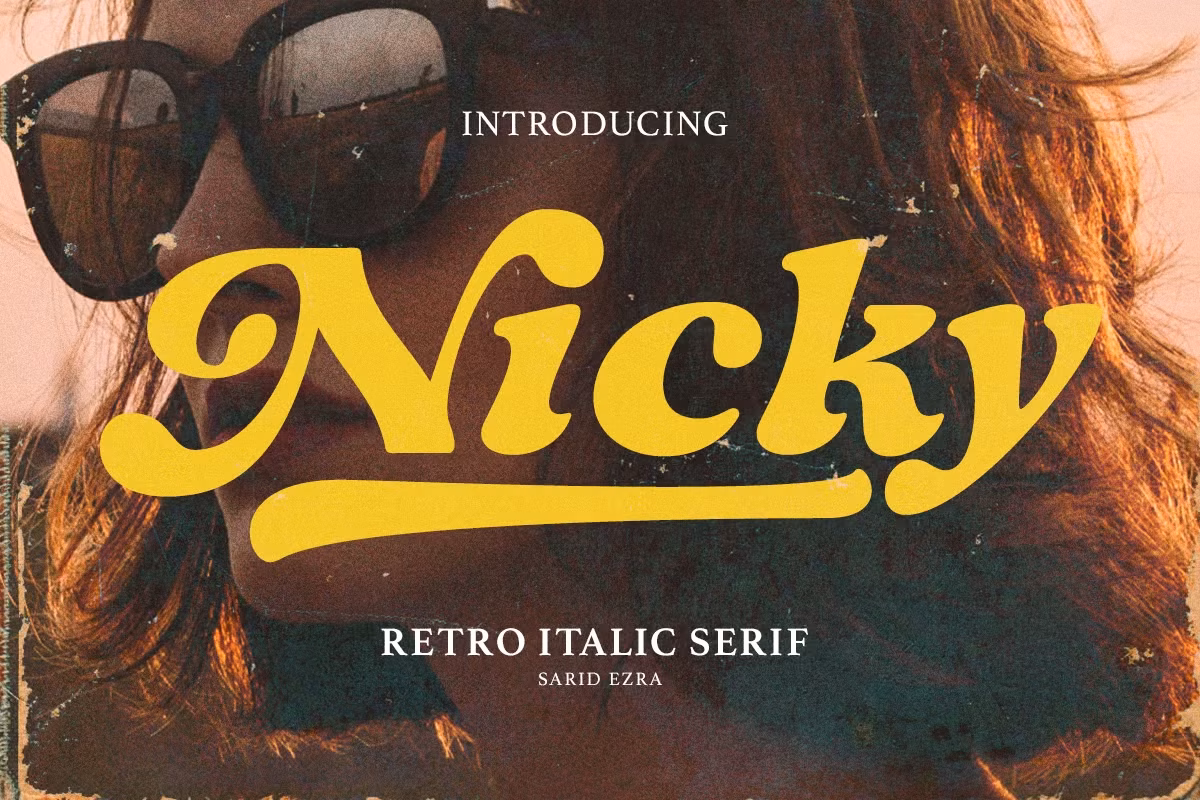
Nicky Retro Italic Serif Font Free Download is a bold and stylish typeface that brings a vintage, retro flair to your designs. Featuring sharp serifs, dynamic italics, and a strong, eye-catching design, this font is perfect for creating headlines, logos, posters, branding, and anything that needs a nostalgic yet modern touch.
Its unique italicized design gives it energy and character, making it ideal for creative projects that require a bold statement. Whether you’re designing for a retro brand, a creative campaign, or a vintage event, Nicky Retro Italic Serif Font Free Download adds style and distinction to your typography.